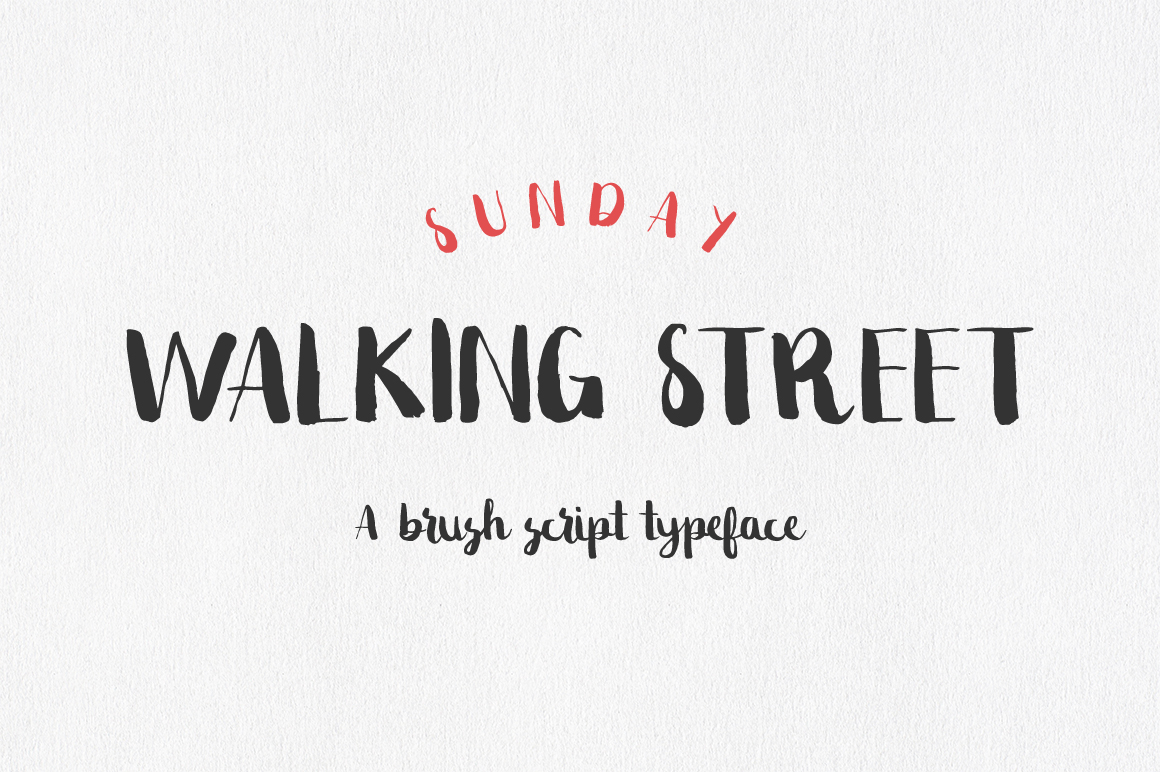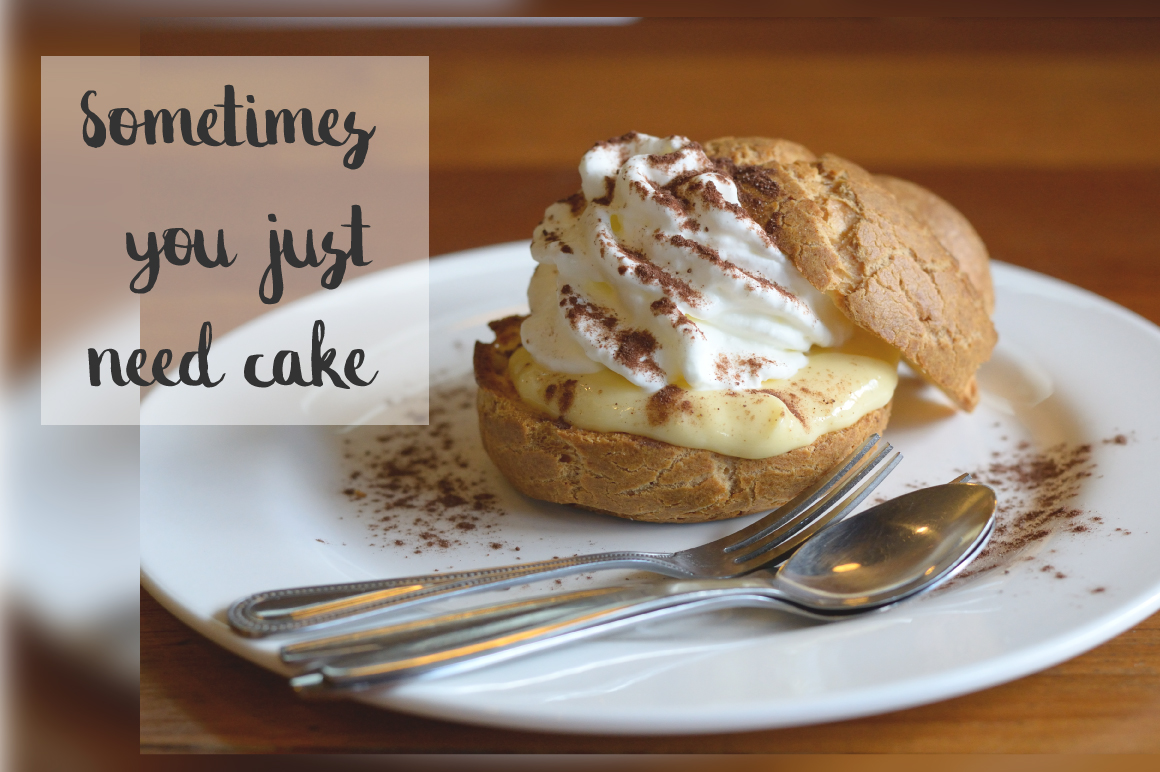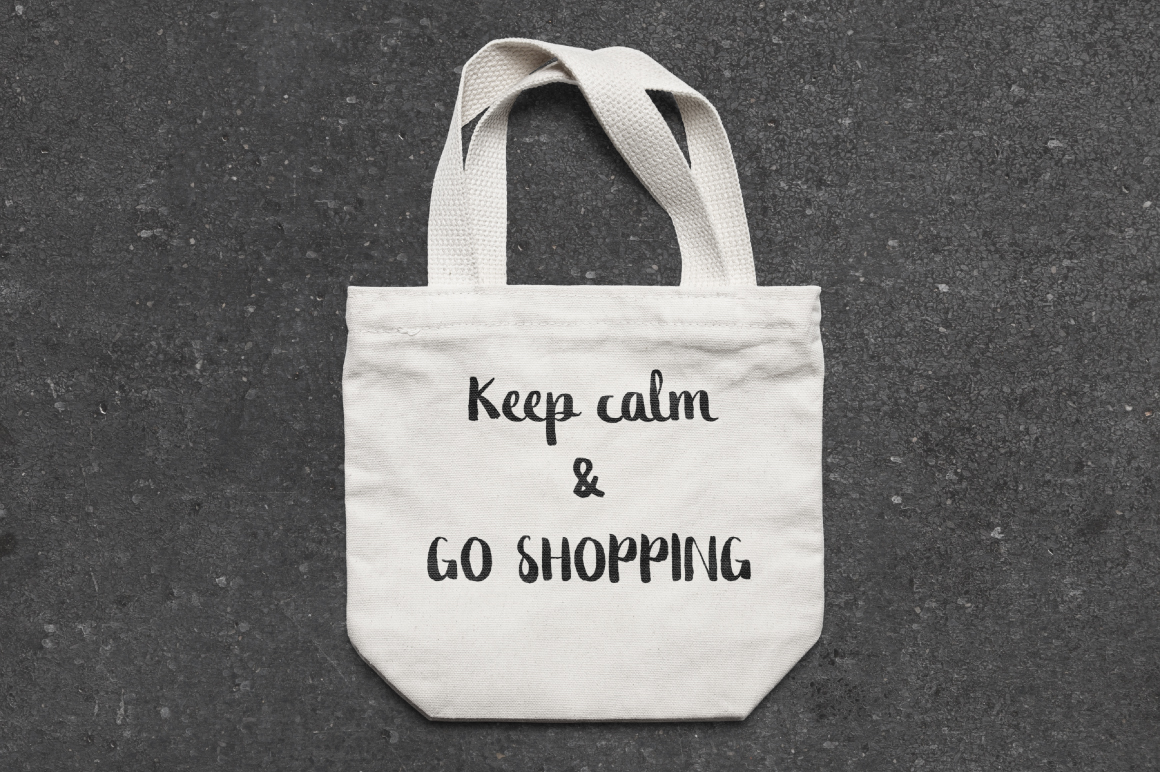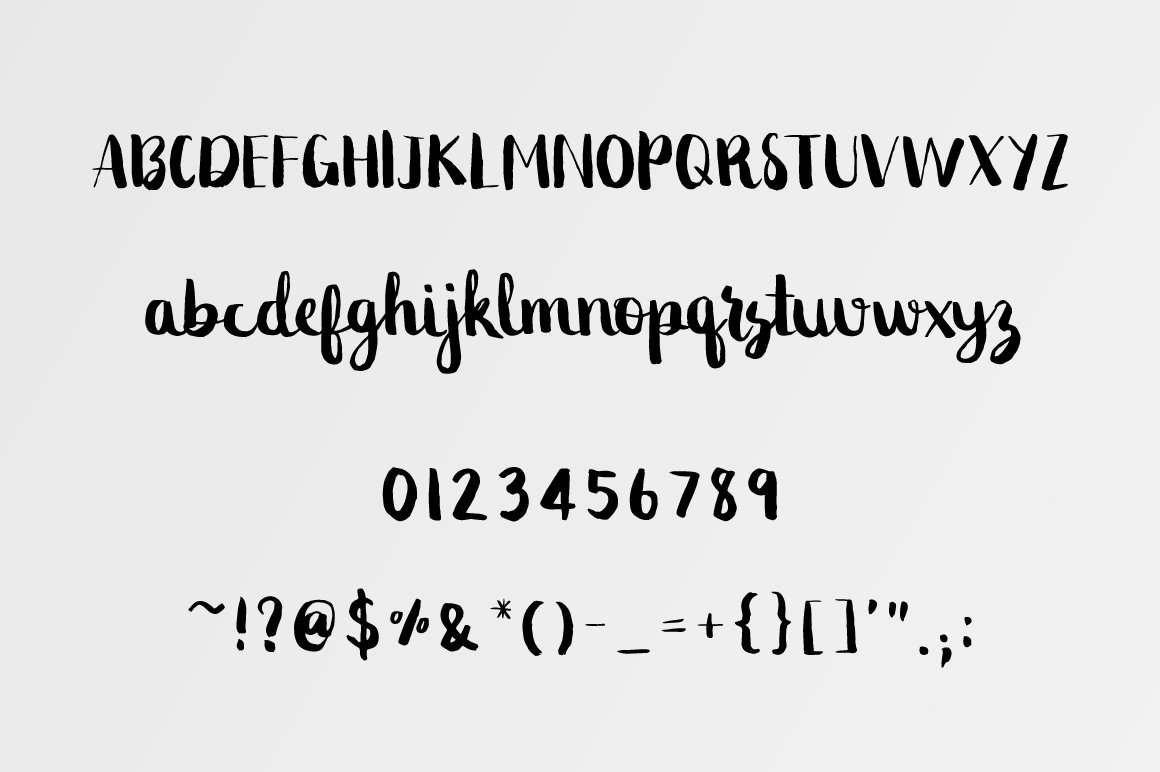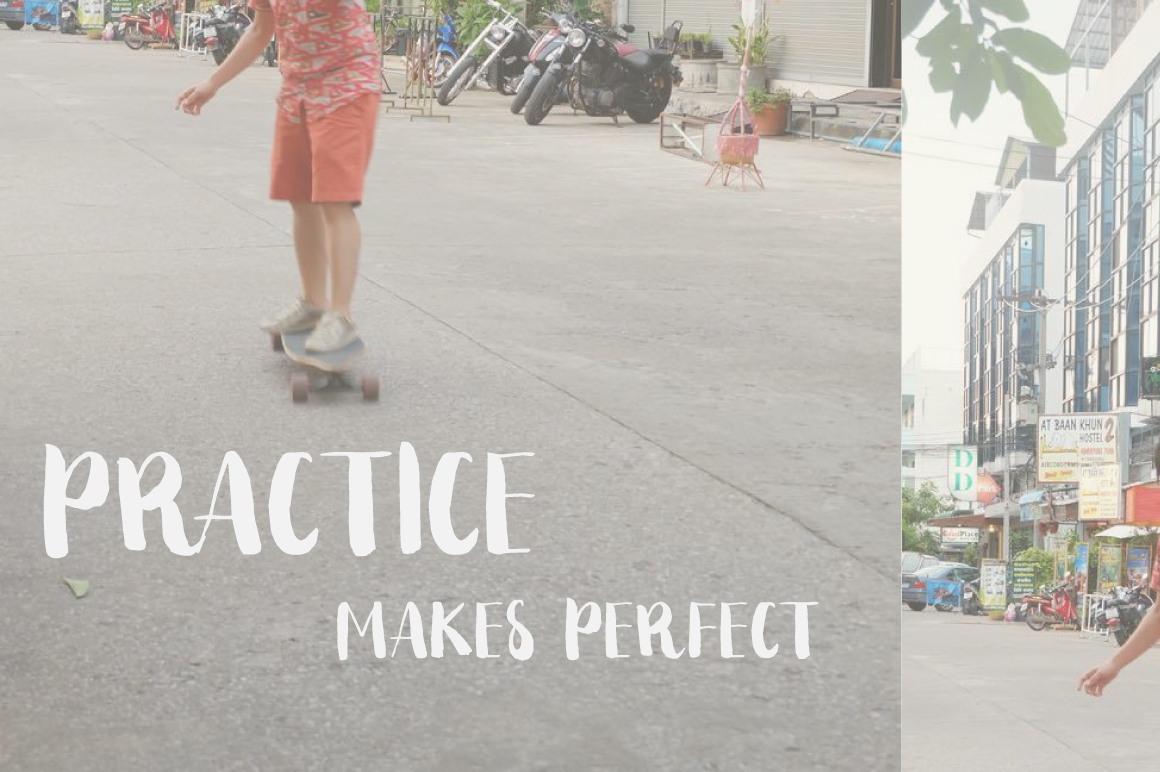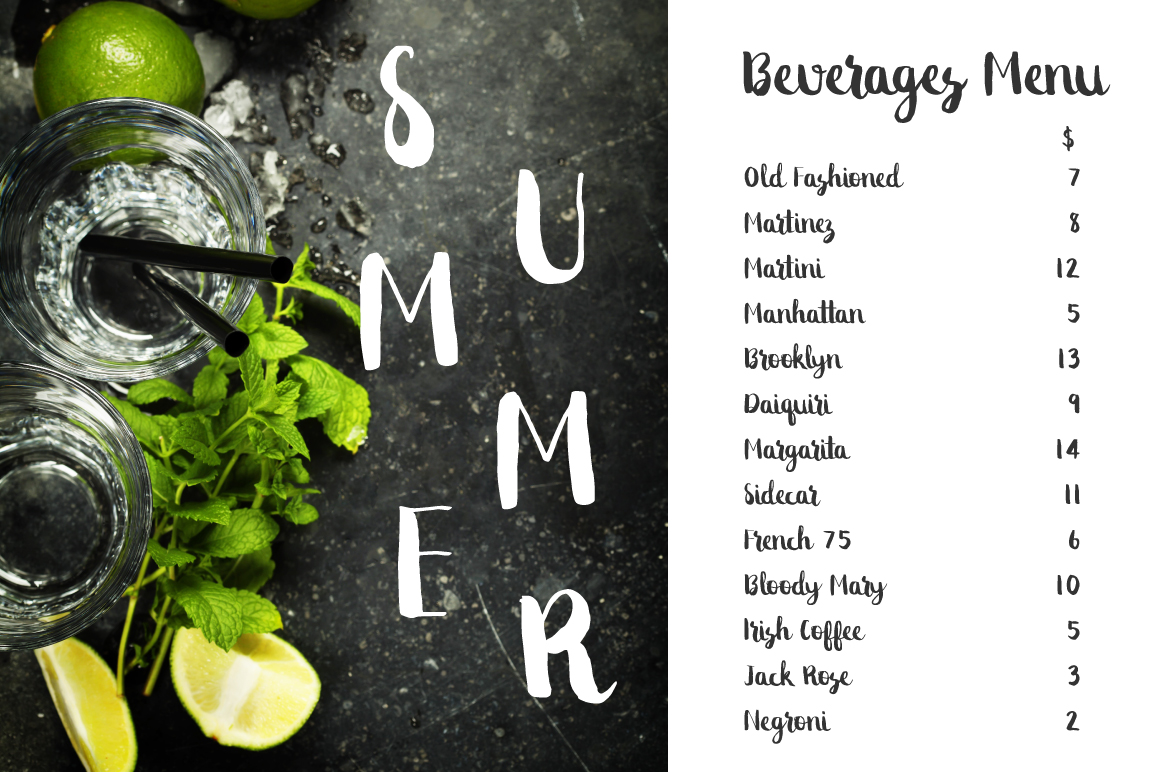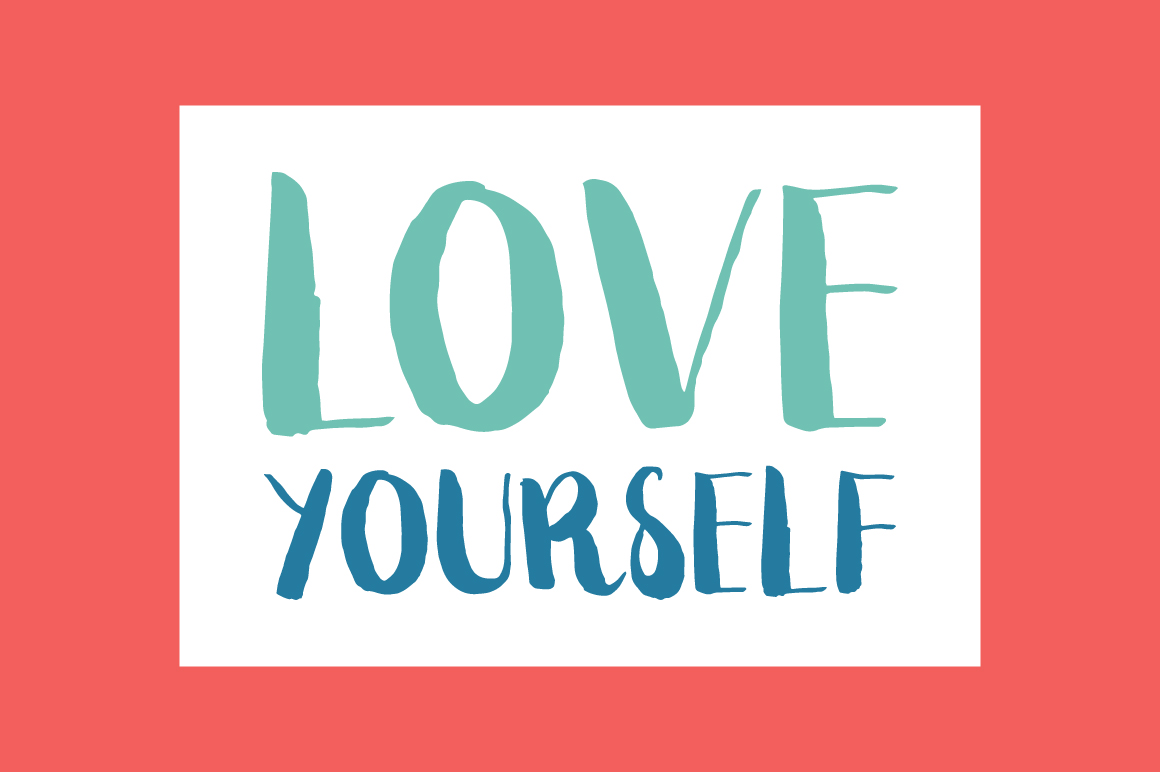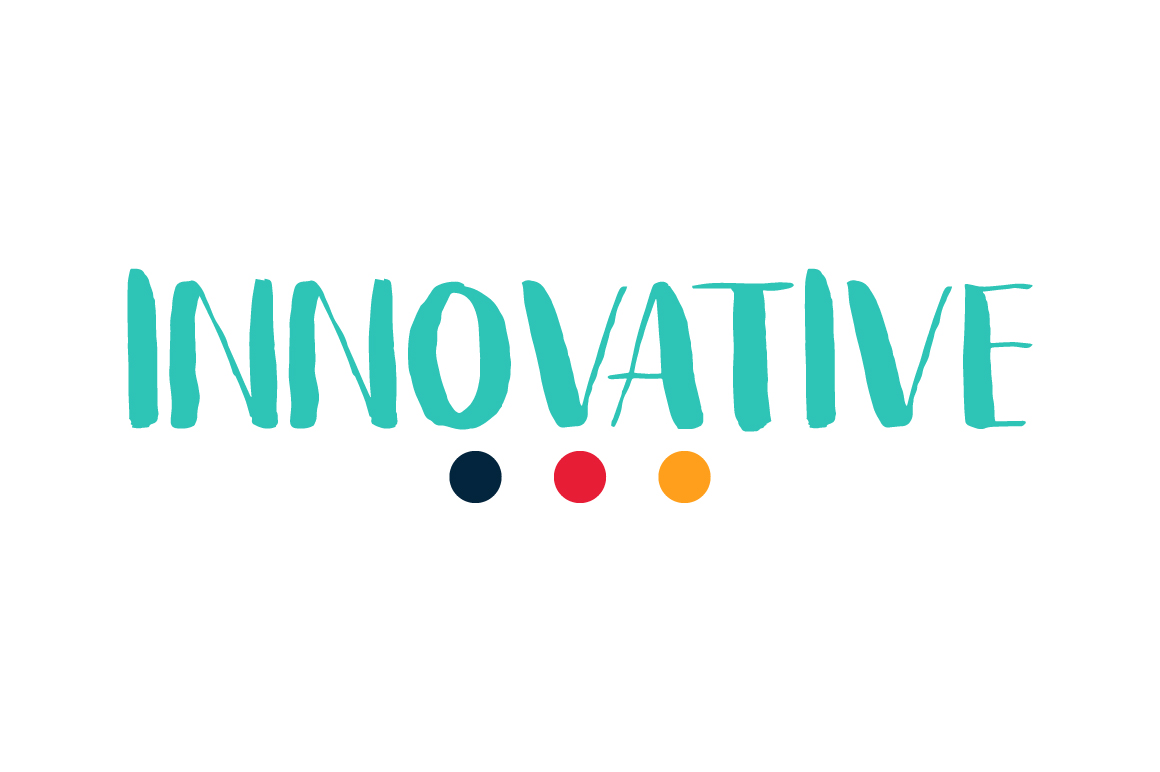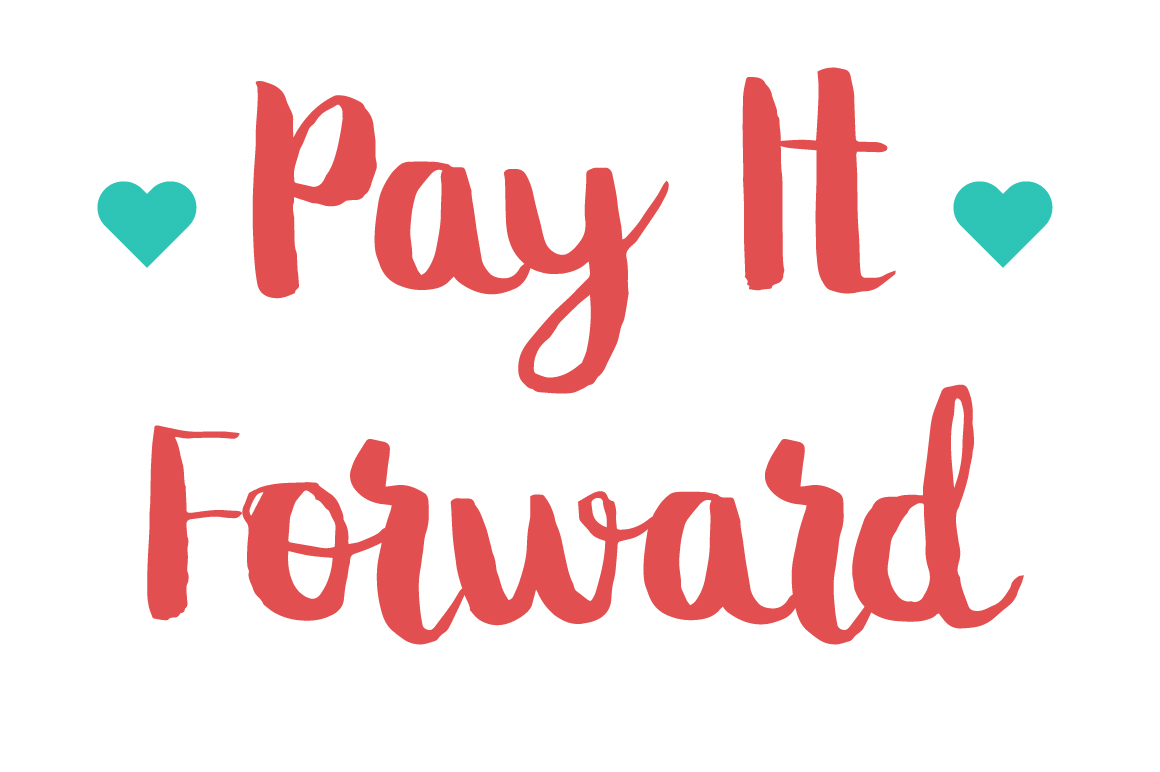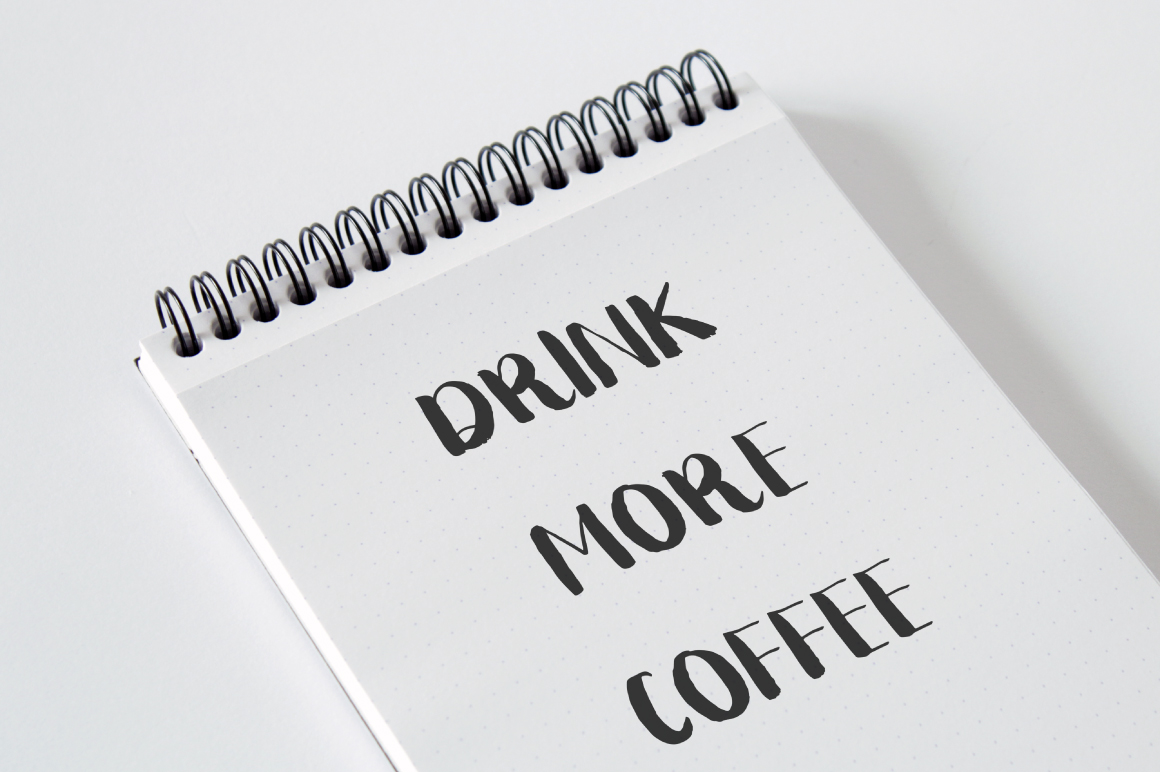
Sunday Walking Street Font
About Sunday Walking Street Font
Sunday Walking Street is a relaxed hand-painted brush font. It was designed with a real brush on paper and digitized for optimization.